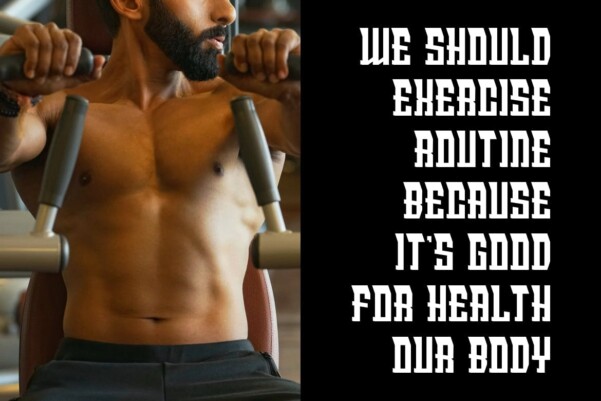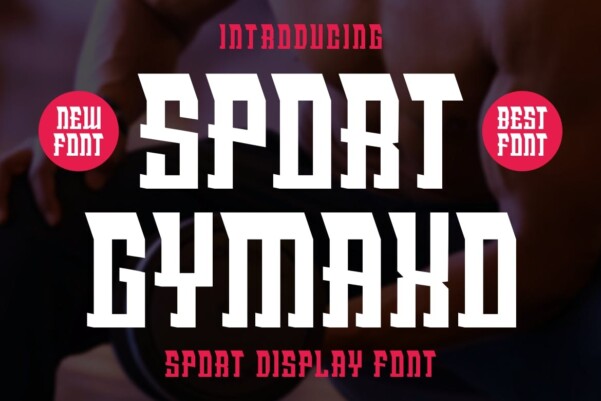
Sport Gymaxo Font
Sport Gymaxo Font is a modern and simple font ideal for displaying headlines, Logos, branding, magazines, product packaging and invitations. The clean lines and gentle curves of the Sport Gymaxo give every project an extra touch of class